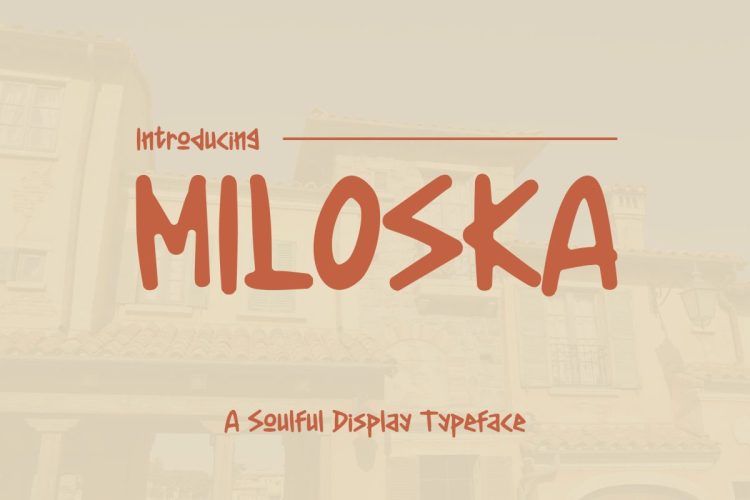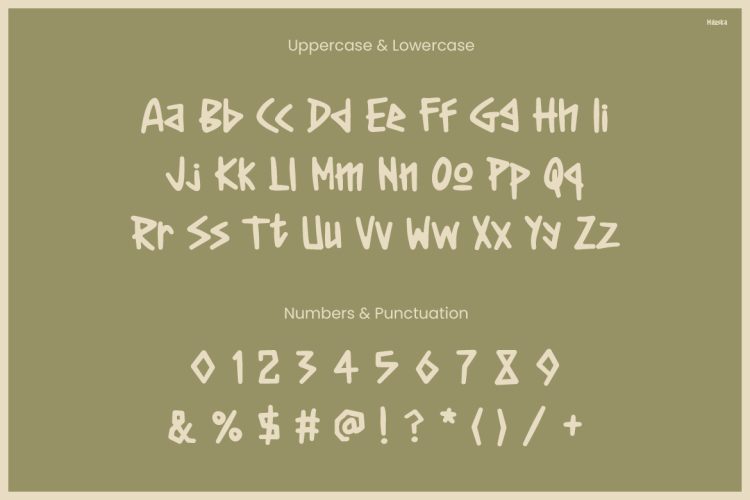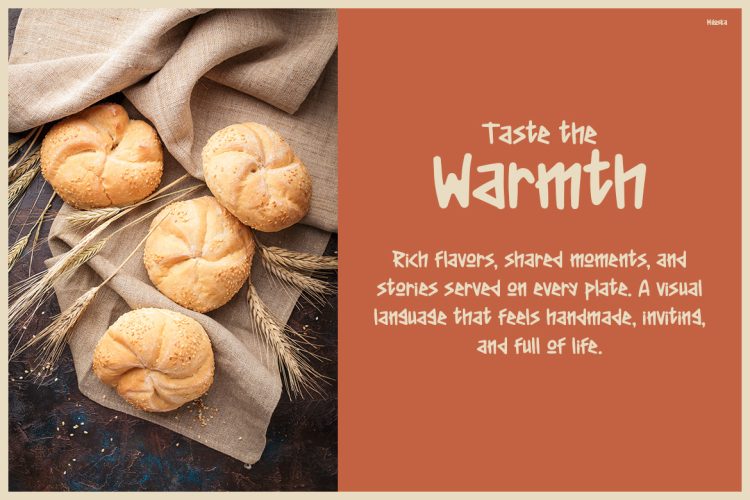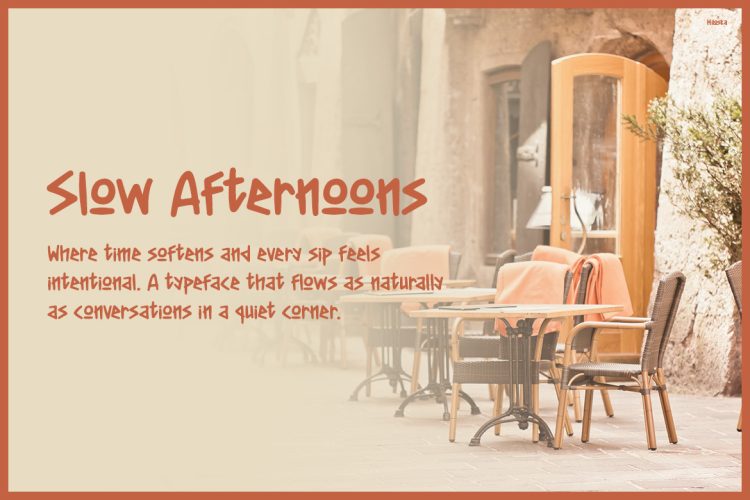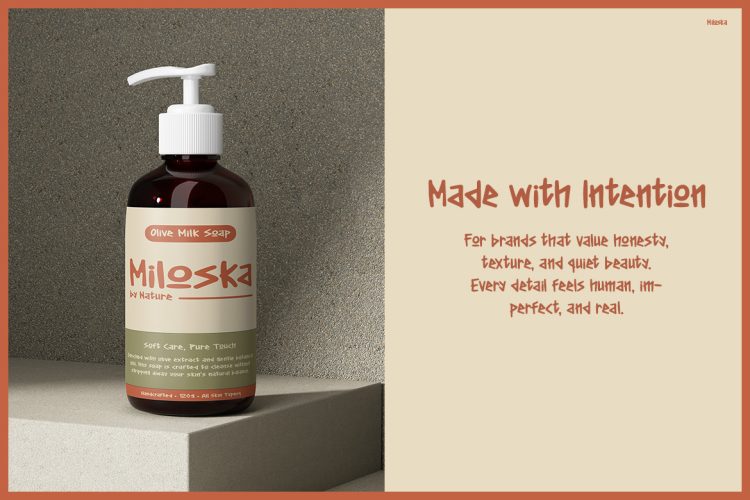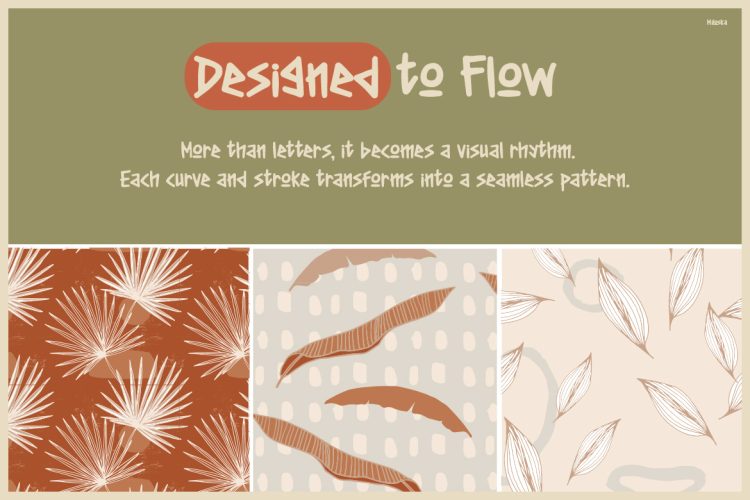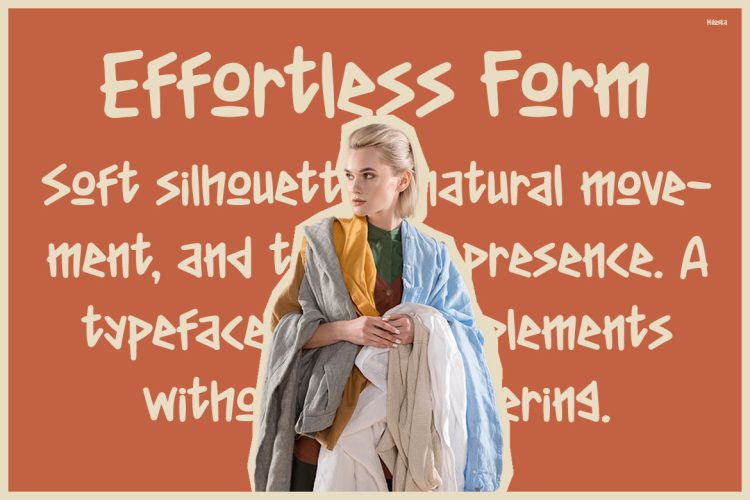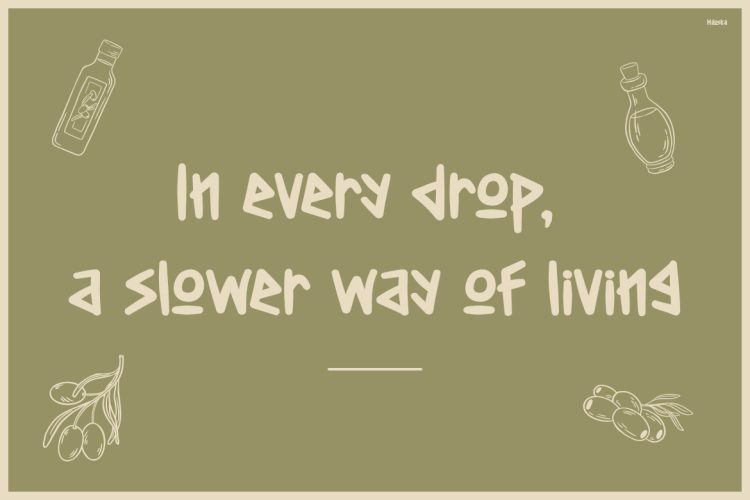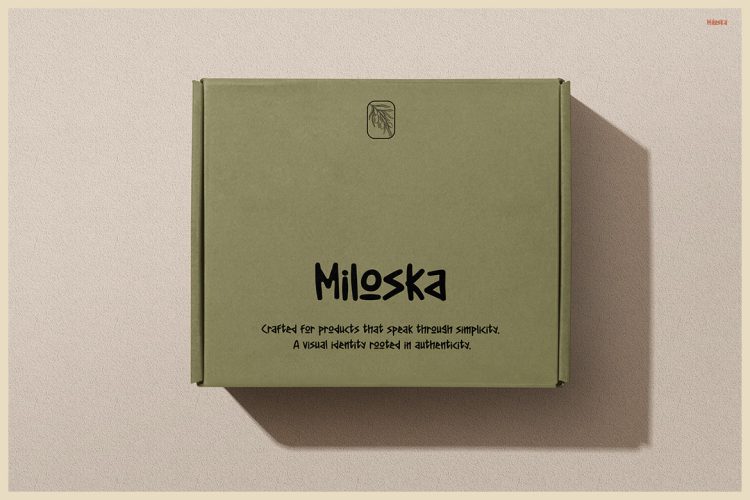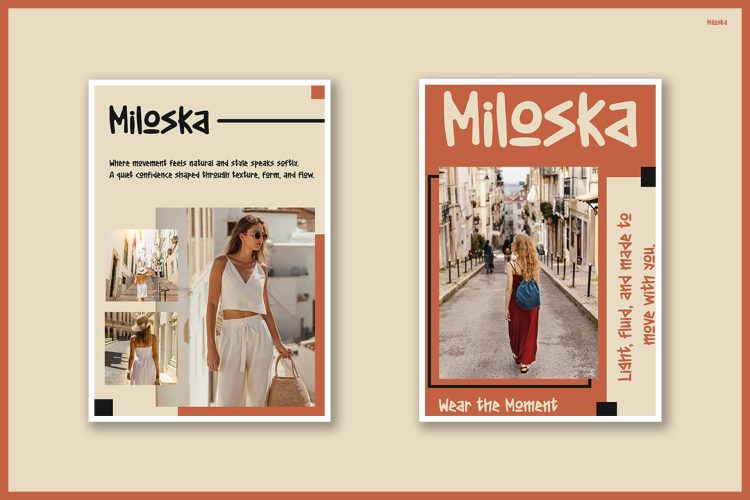
Miloska โ Effortless Organic Handwritten Charm
Instagram Font Miloska brings a warm, natural handwritten feel that instantly stands out. Moreover, its soft strokes and slightly irregular flow create a relaxed yet stylish aesthetic. As a result, the font feels human, calm, and authentic in every composition. In addition, its organic curves enhance a personal touch while still looking polished and professional. Therefore, Miloska is perfect for designs that need both charm and clarity, especially in todayโs visually driven platforms.
Miloska captures the essence of slow living and mindful design. Furthermore, it flows smoothly across layouts, whether paired with earthy tones, warm palettes, or minimal compositions. For instance, it works beautifully with lifestyle imagery, cafรฉ branding, and product packaging visuals. Meanwhile, the breathable letterforms create a clean yet expressive look that feels inviting. Because of this, it fits both bold headlines and subtle captions with ease. Not only that, but its handcrafted style also helps create emotional connection, which is essential for modern branding and storytelling.
Instagram Font Miloska Perfect For
This font is ideal for creative entrepreneurs, lifestyle brands, and cafรฉ owners. Additionally, it suits organic product businesses, skincare brands, and handmade product sellers. Not only that, but it also performs well in Instagram posts, Pinterest graphics, packaging design, and editorial layouts. In other words, Miloska adapts easily to any aesthetic project that needs a natural, calming, and artistic vibe. Whether you are building a brand or enhancing social media visuals, this font delivers consistency and beauty.
Ultimately, Instagram Font Miloska isnโt just a fontโitโs a feeling. So, if you want your design to look more genuine, aesthetic, and memorable, this font is the right choice. Donโt waitโelevate your creative projects today with Miloska and make every design feel effortlessly beautiful.